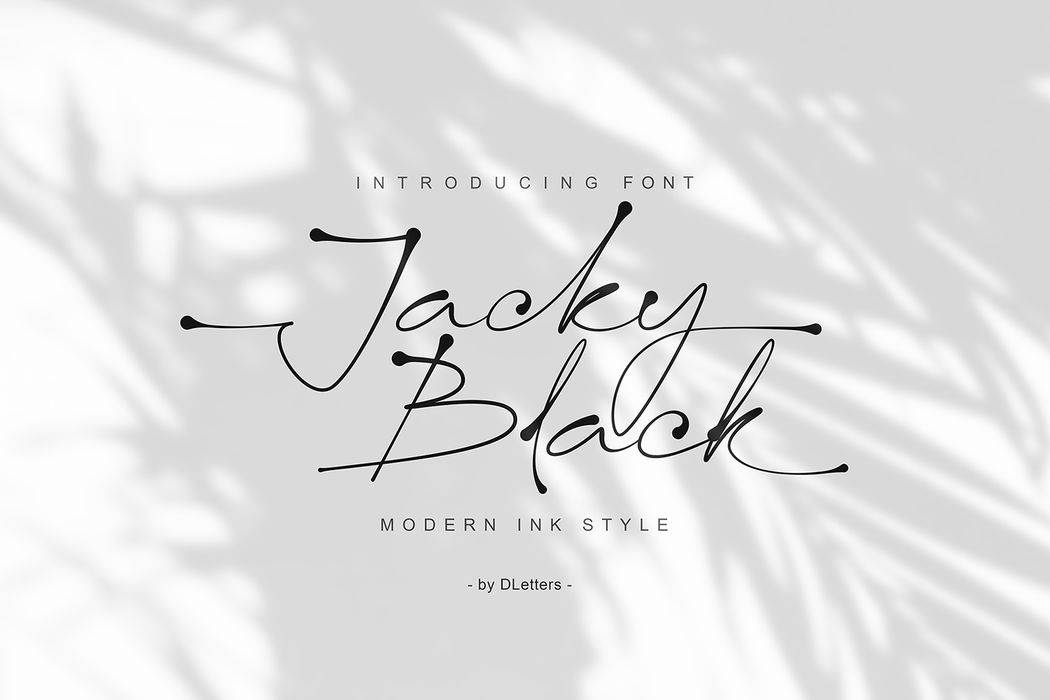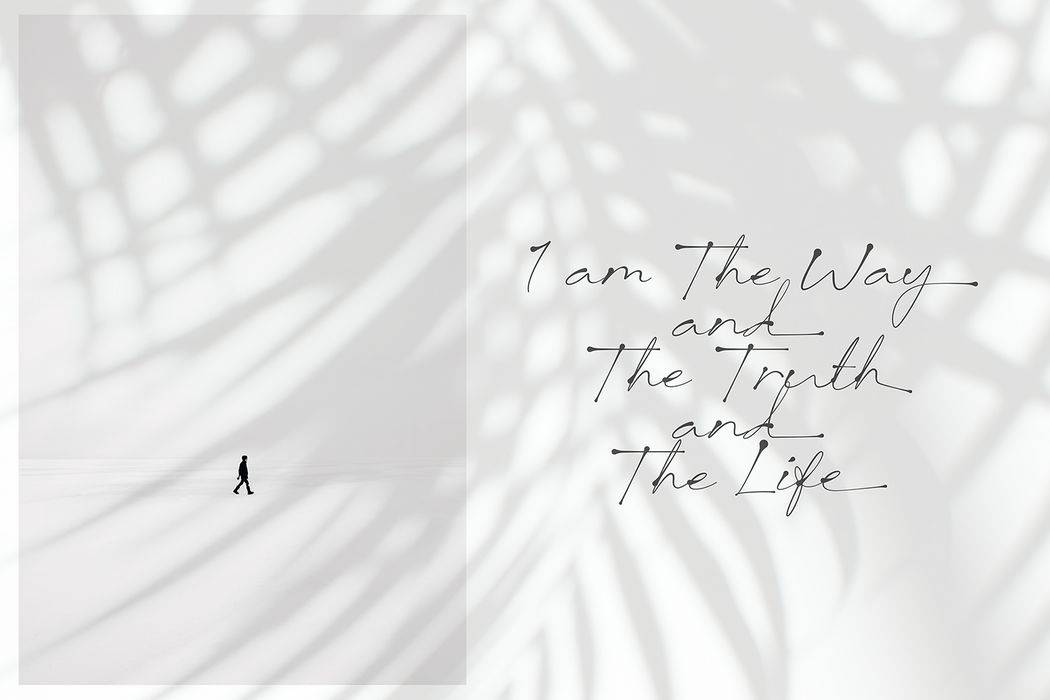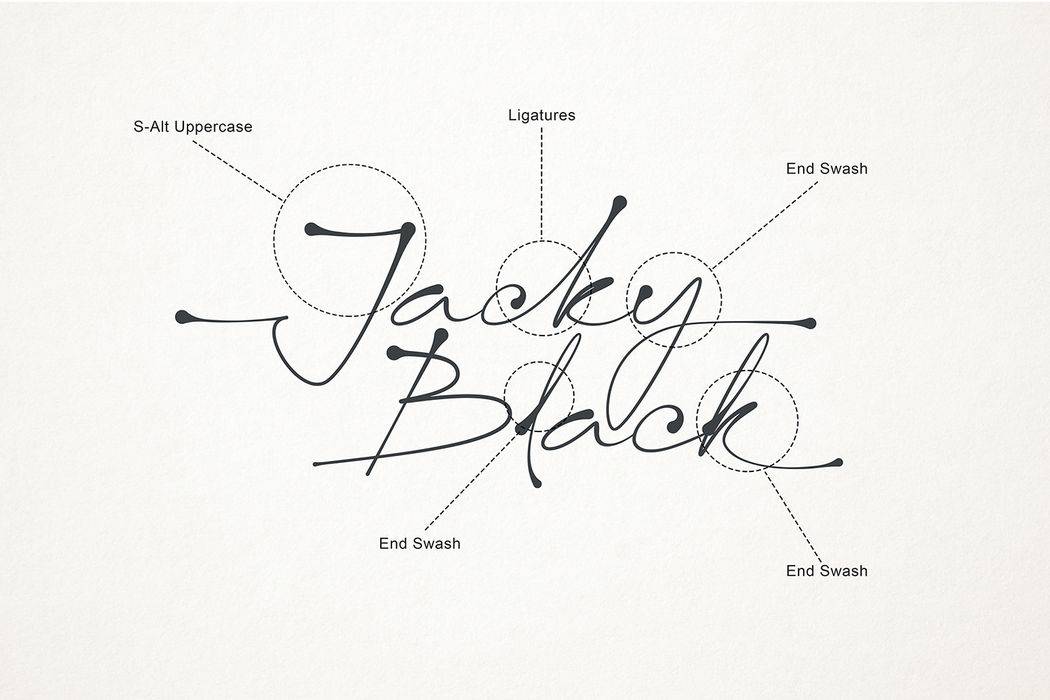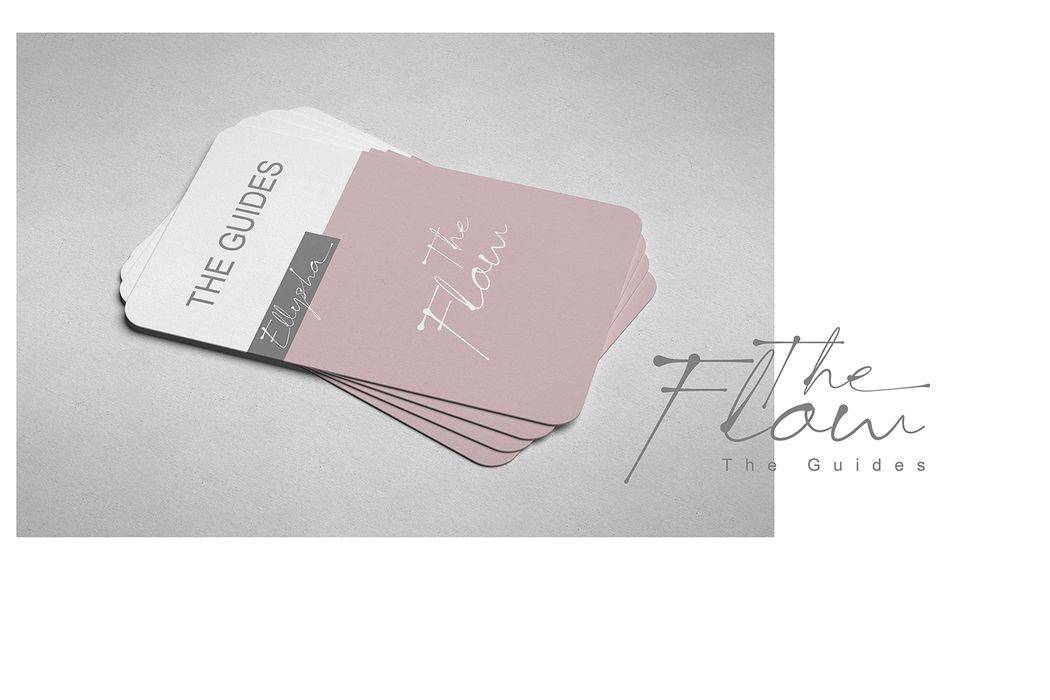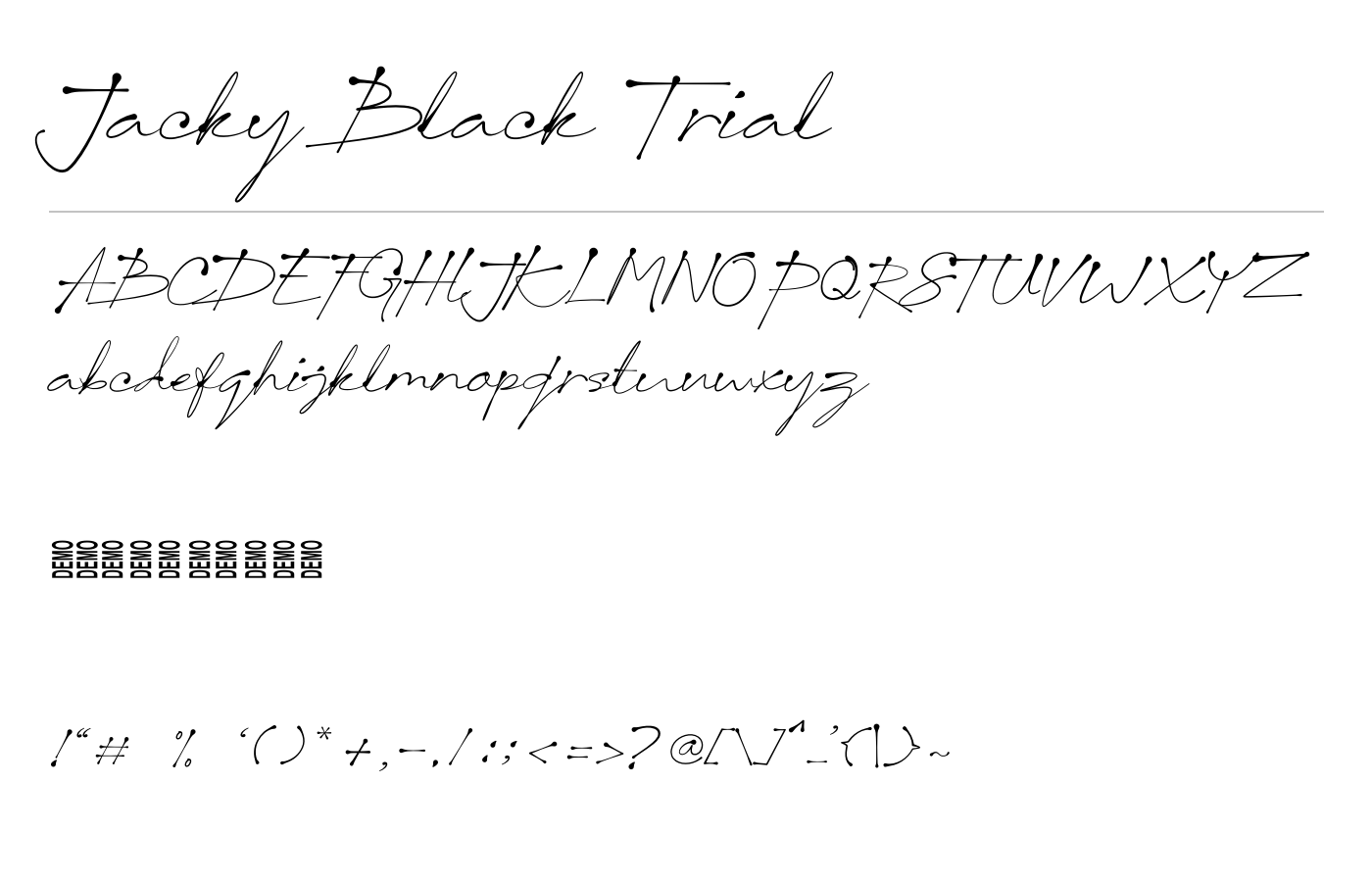
Jacky Black is an elegant, handwritten script font featuring slender, flowing lines with delicate tapering and gentle loops. It conveys a personal, artistic feel that is both sophisticated and approachable, making it ideal for creative branding, invitations, and stylish editorial use where a refined, yet informal touch is desired.
Jacky Black Font
About Jacky Black Font